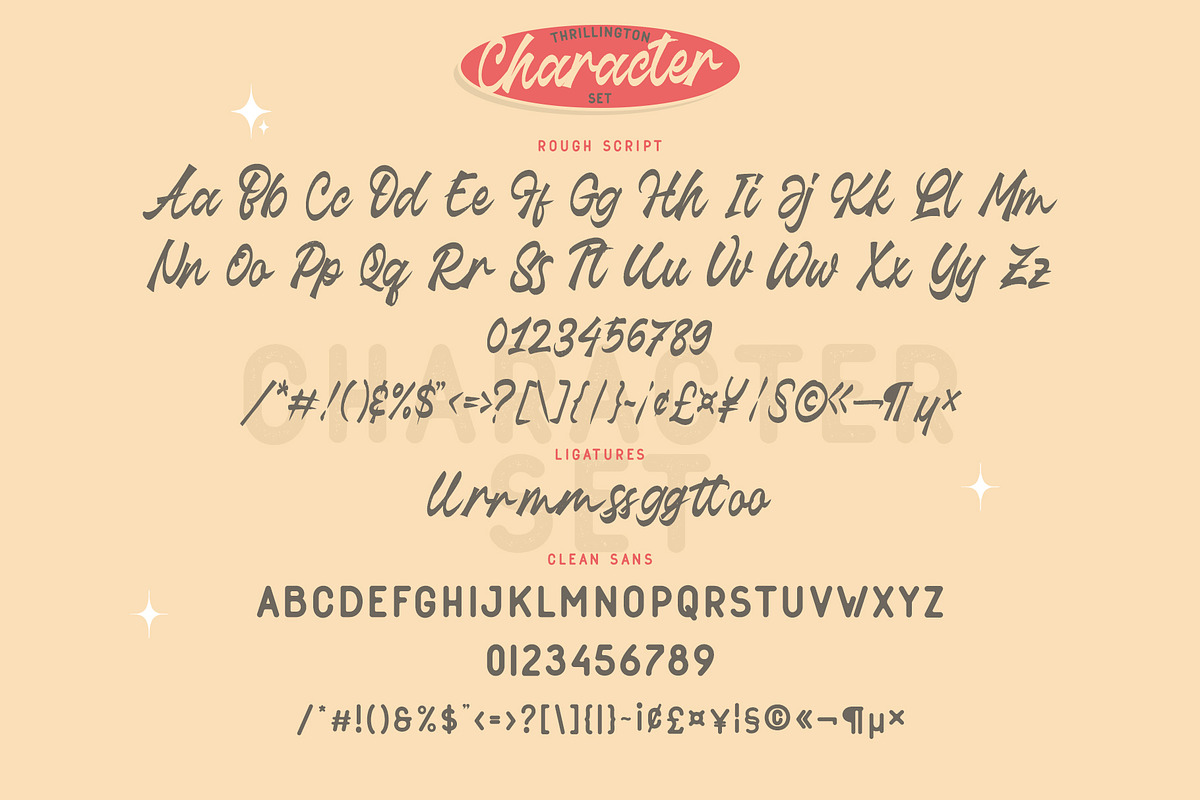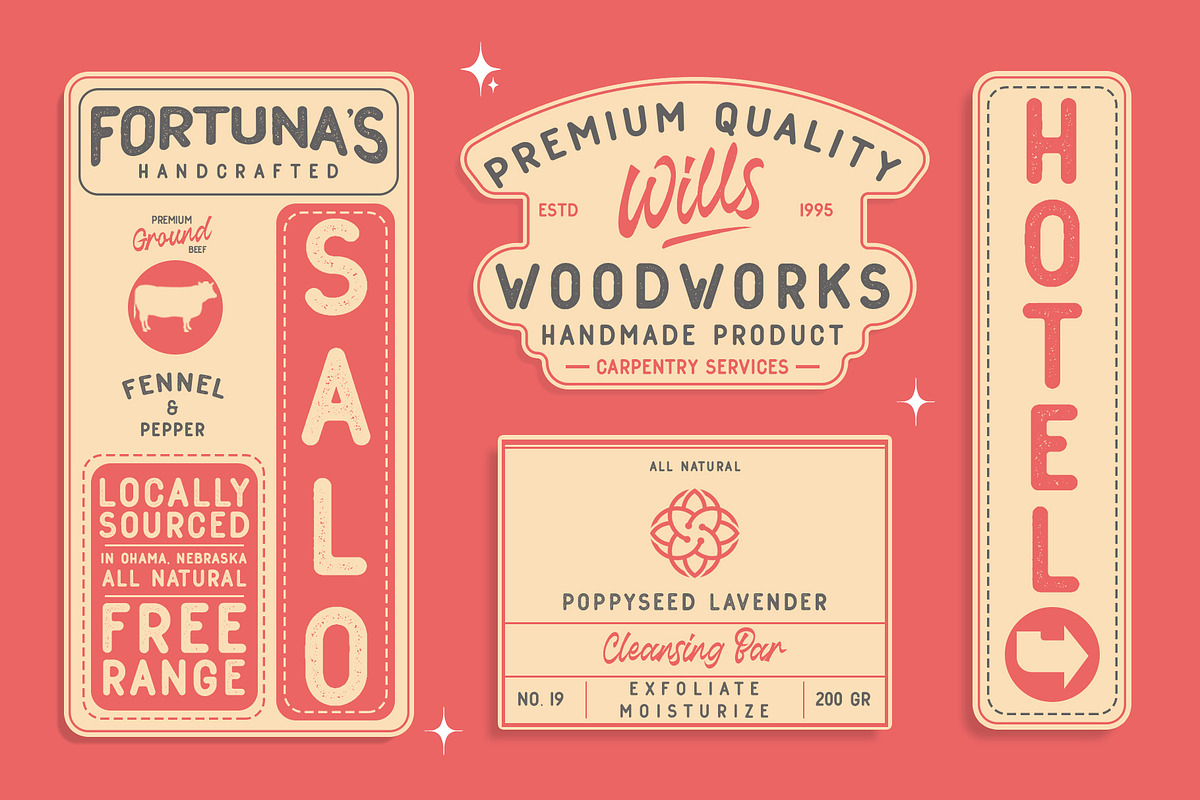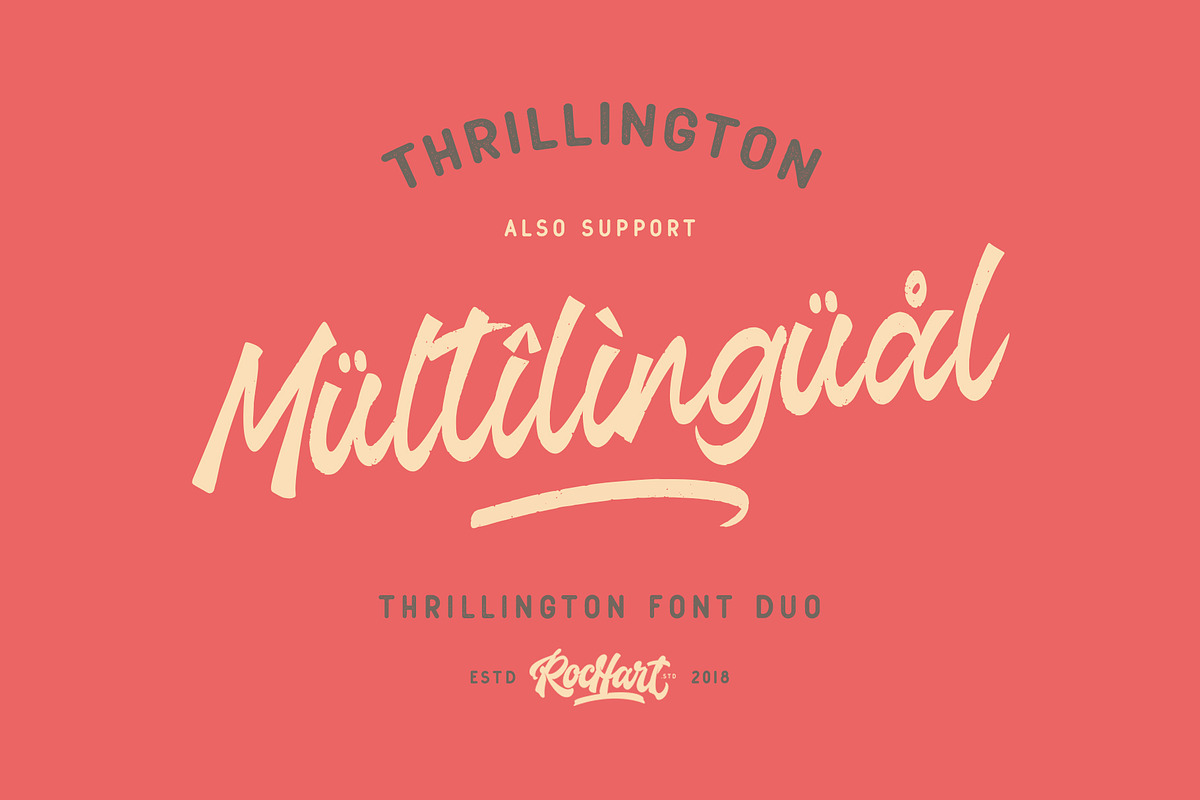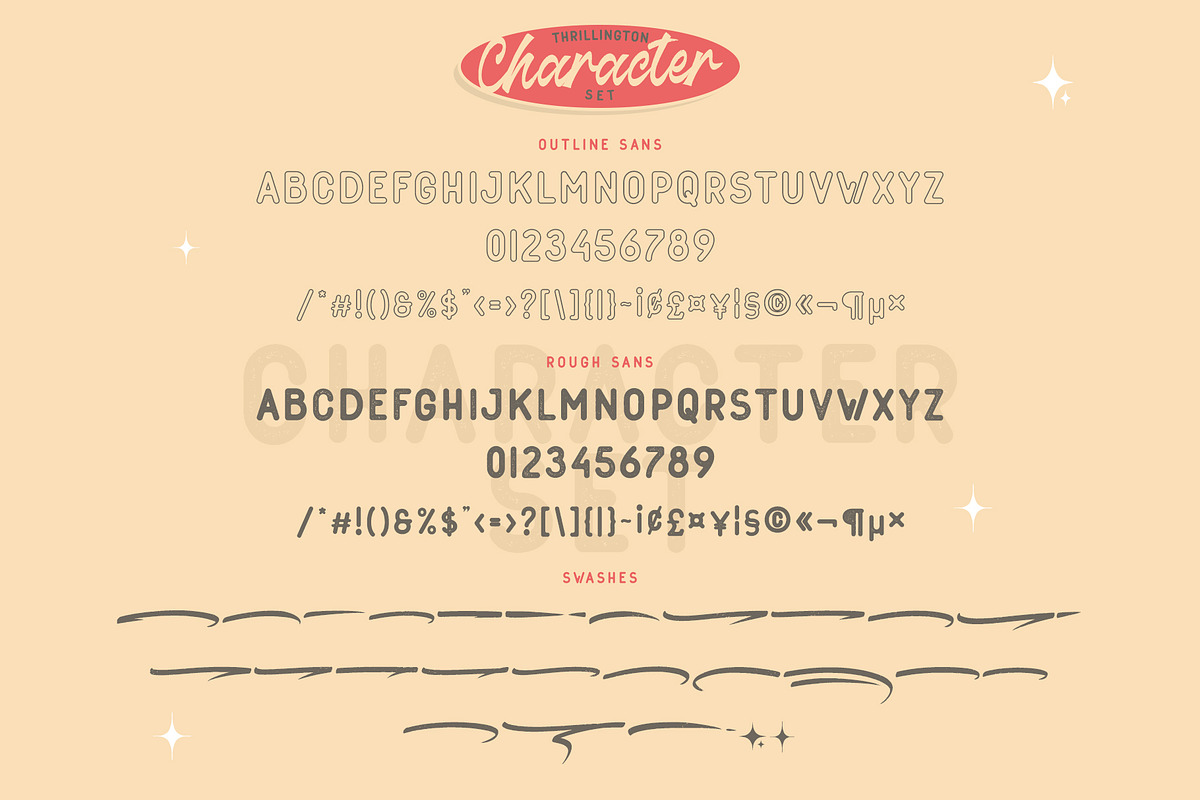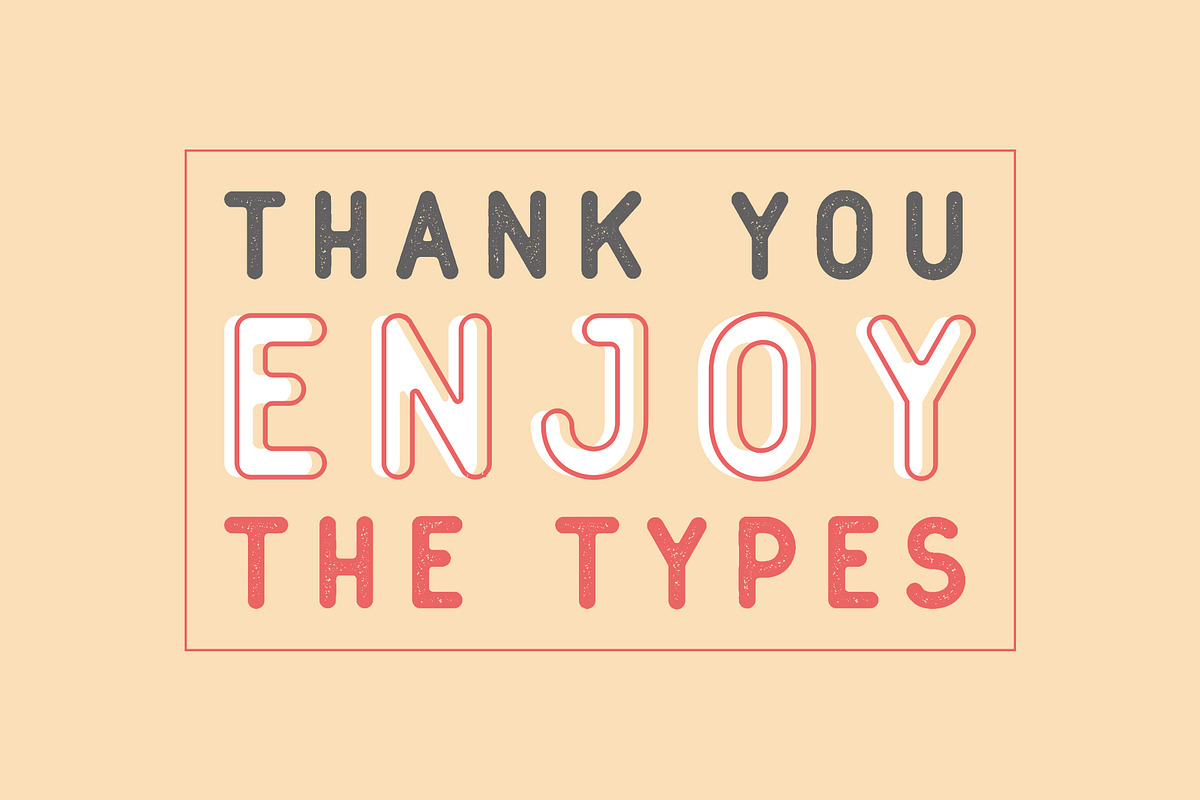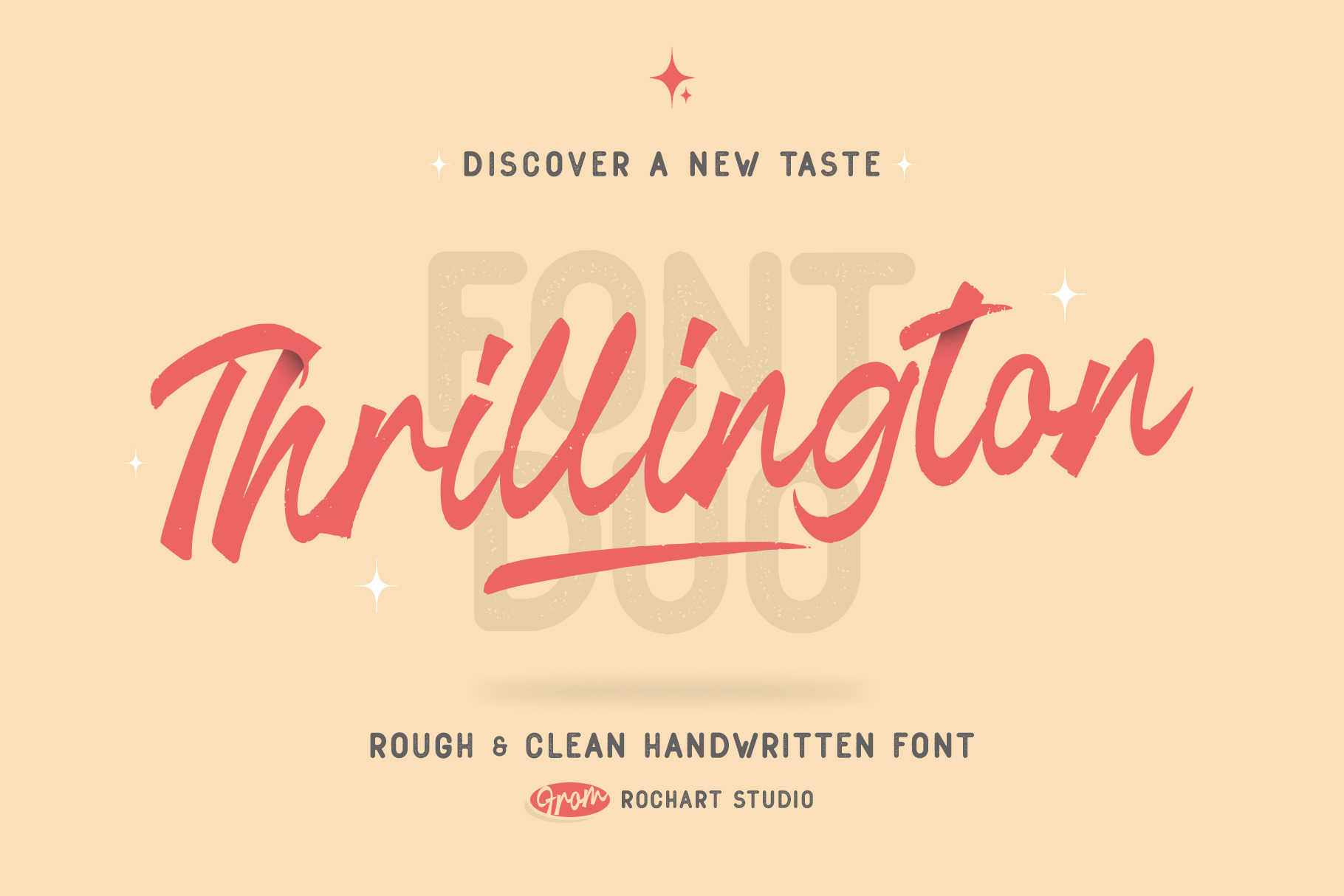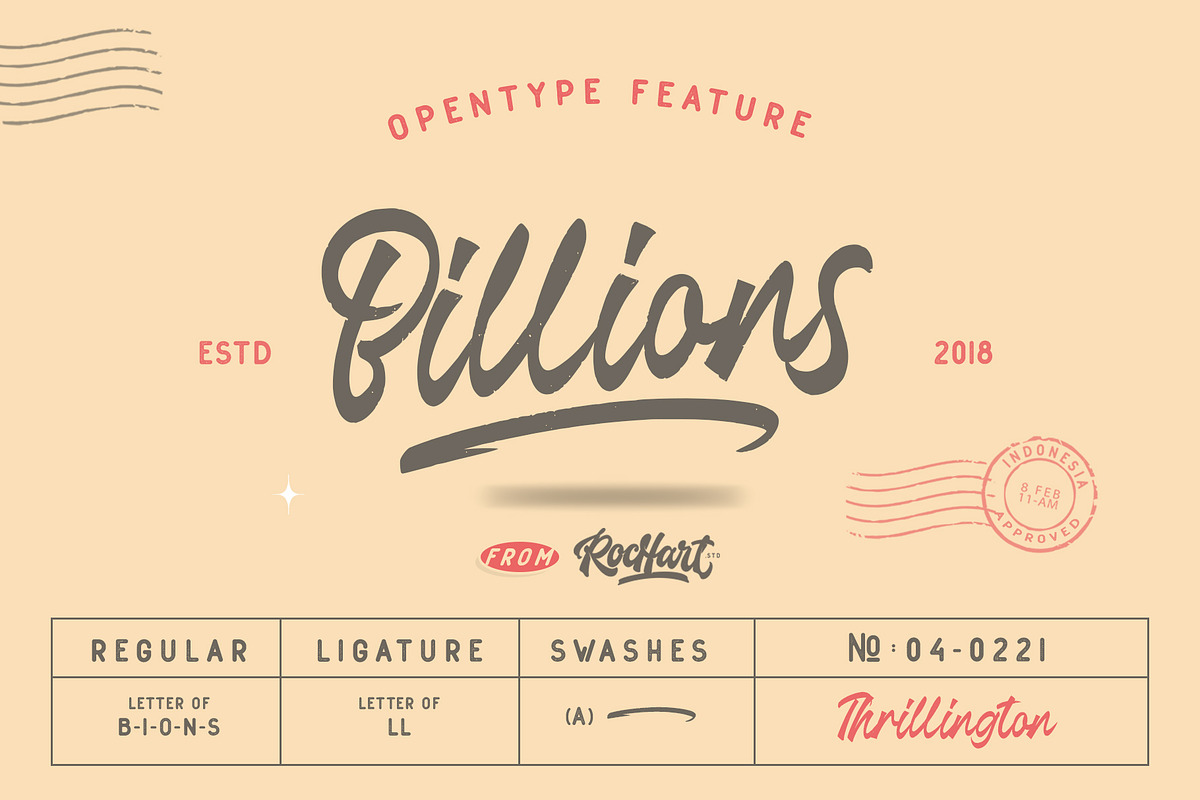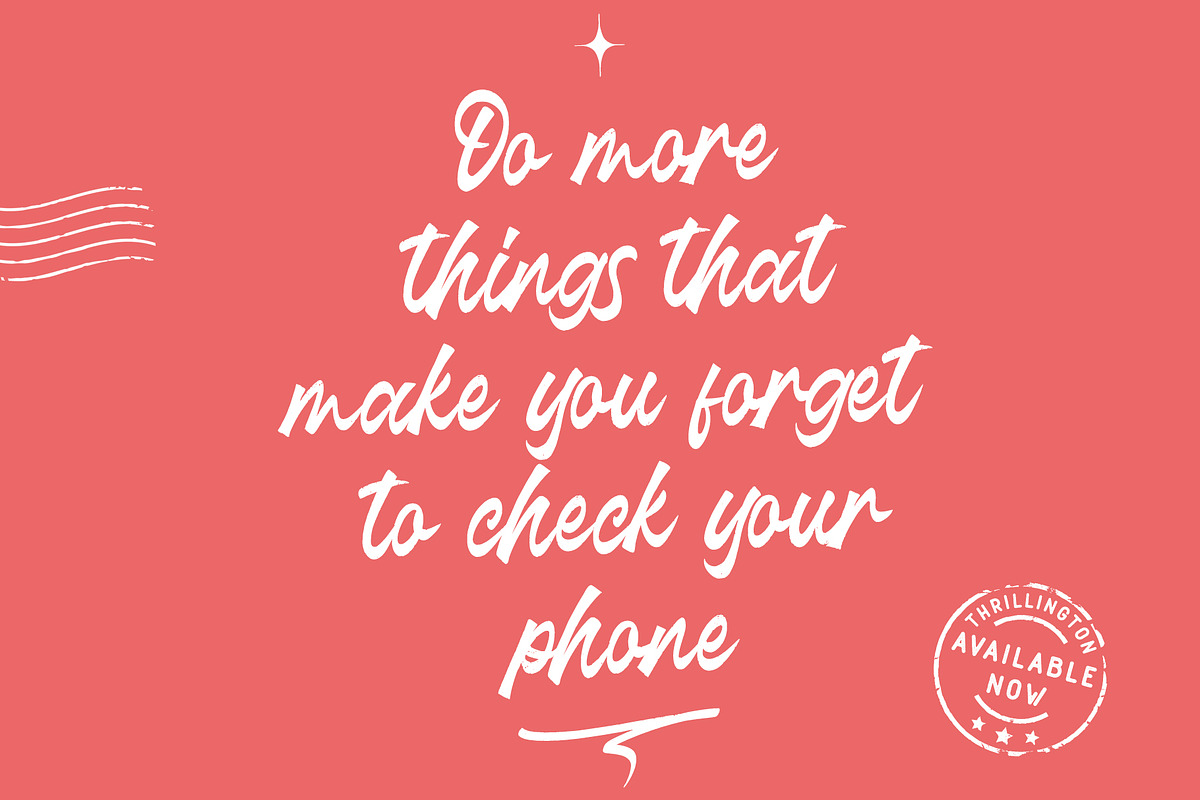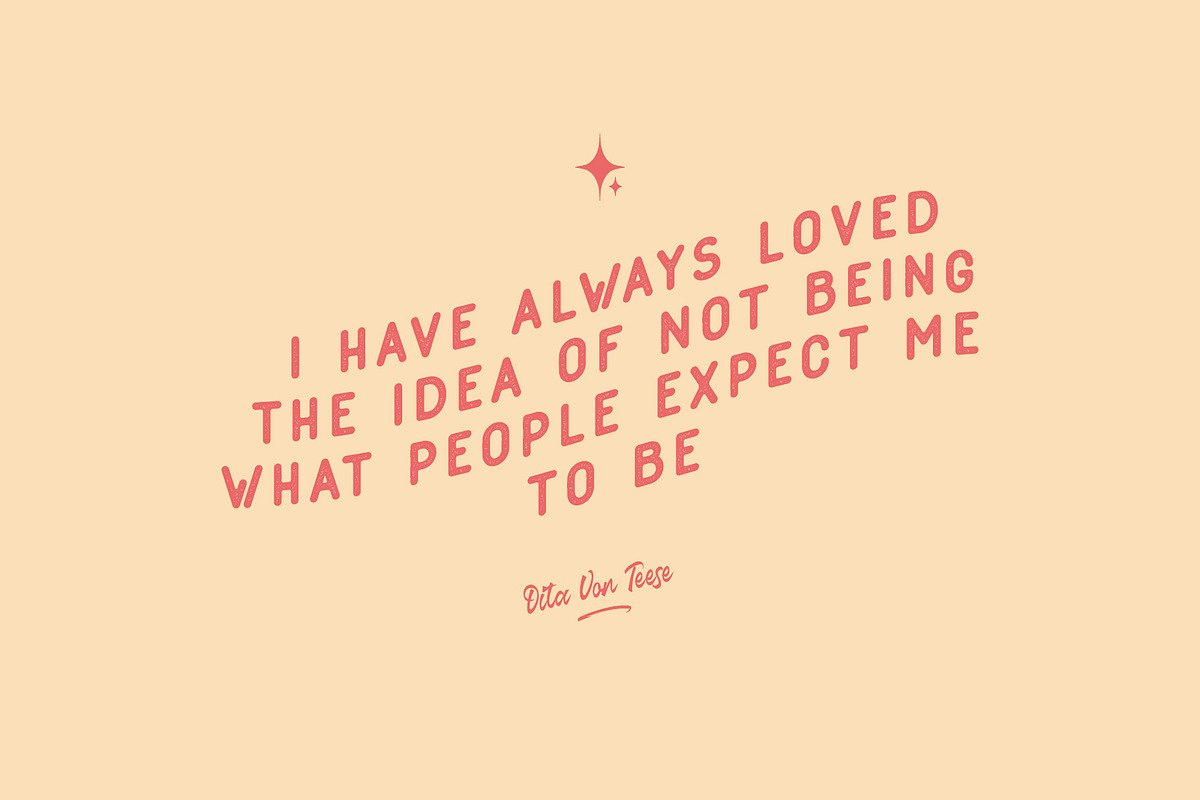
Thrillington || FONT DUO
Thrillington is font duo with modern vintage look design styles, available on script and Display Sans serif typeface. These two lovely fonts would be perfect to combine in your design. Brand new stylish textured fonts and Make it easy for made logotype hand lettering Style. It will be great for Logotypes, Posters, Digital Lettering Arts, Clean Design, Branding Design, Sign, Merchandise and Social Media Posts.
This font contain of Uppercase, Lowercase, Number, Symbol, Punctuation, also support multilingual and already PUA encoded.